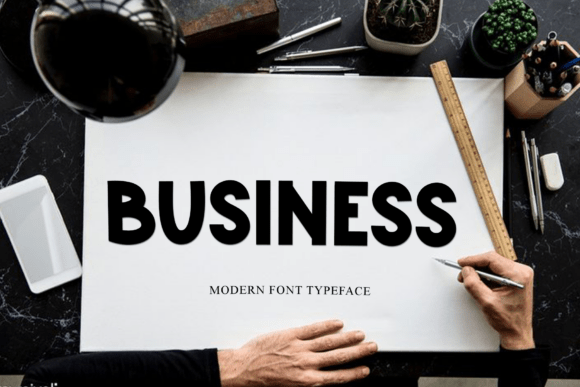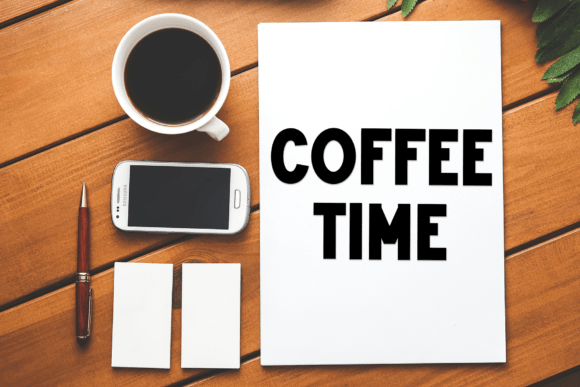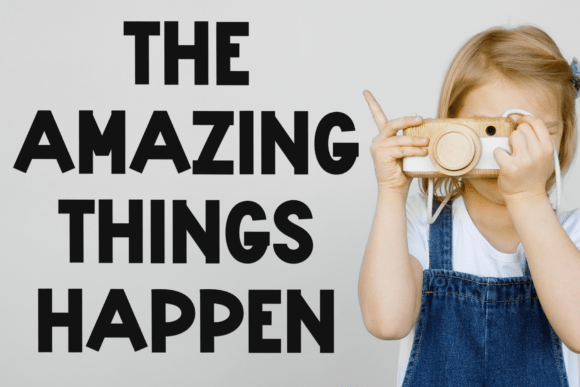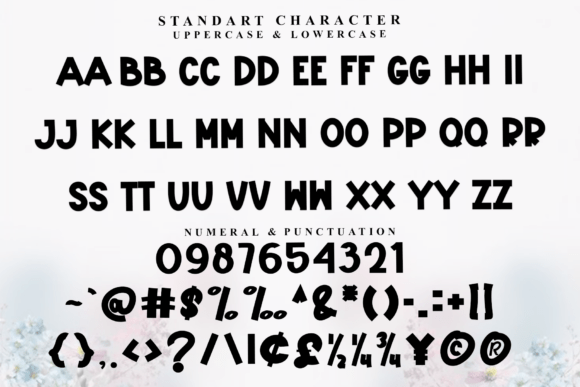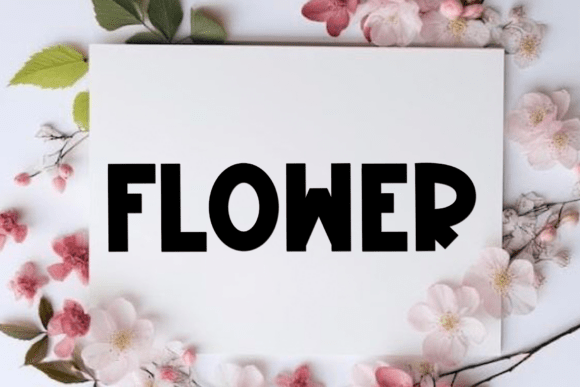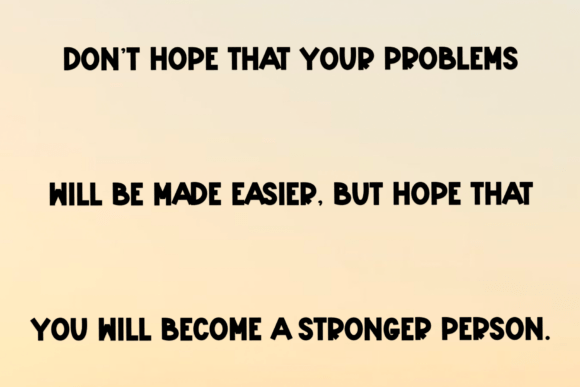
The Quest for the Perfect Font: How Friday Ground Stole My Heart
I’ll never forget the frustration of working on a design project, hours pouring into every detail, only to be held back by one thing: the font. It was a client request for a unique, eye-catching look that felt both natural and sophisticated. I scoured the internet, tried countless fonts, but nothing seemed quite right. That was until I stumbled upon Friday Ground – a beautiful, soft, and uniquely designed font that instantly captured my attention.
First Impressions: A Love Letter to Friday Ground
Friday Ground is more than just a font; it’s an experience. Its distinctive strokes give it a special character, making it both meaningful and versatile. Here are a few things I love about it:
- ✨ Unique Touch: The soft, rounded edges make it perfect for designs that need a friendly, approachable feel.
- ✅ Versatility: Whether you’re working on a logo, a poster, or a craft project, Friday Ground adapts seamlessly.
- 🎨 Aesthetic Appeal: The font’s natural style enhances designs, making them appealing to a wide range of audiences.
Honest Review: The Not-Perfect-but-Almost There
No font is perfect, and Friday Ground has a few quirks:
- 🤔 Limited Use in Serif Contexts: While it’s amazing in many contexts, it might not be the best fit for projects requiring a traditional serif font.
- ⚠️ Occasional Kerning Issues: As with many fonts, you might encounter some kerning issues, especially in larger text blocks.
The Story Behind Friday Ground
Friday Ground was created with the intention of bringing a touch of warmth and uniqueness to designs. Inspired by natural landscapes and the beauty of everyday moments, its designer aimed to craft a font that felt both approachable and distinctive. While the exact story behind its creation might be shrouded in mystery, its impact on the design community is clear.
Friday Ground is more than just a font; it’s a tool that can transform your designs, adding a touch of elegance and uniqueness. Whether you’re a designer, a crafter, or a creative hobbyist, this font has the potential to elevate your work and make it stand out.